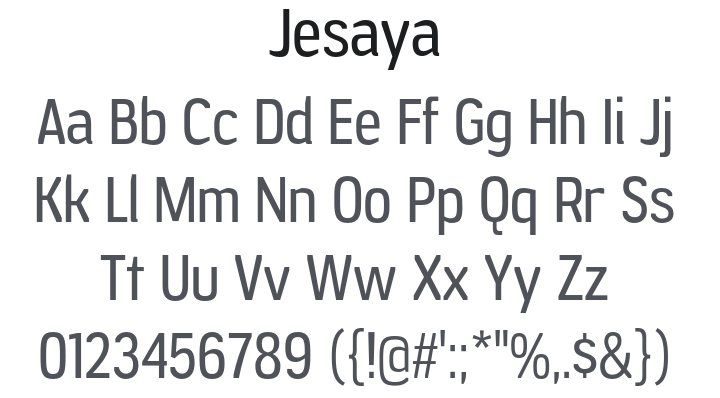
Jesaya Font
About Jesaya
Jesaya is a geometric sans with softened corners and precision-built forms that balance engineered structure with human warmth. Its chamfered joins ease readability and lend subtle elegance to both text and display settings. With seven weights and matching italics, it moves seamlessly from refined luxury branding to clear UI design and bold signage. Supporting a broad range of Latin-based languages, Jesaya brings confident clarity and approachability to global communication...a modern geometric sans that feels precise yet welcoming.